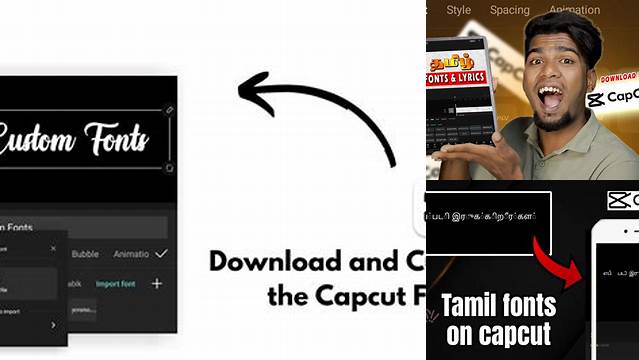
Get Your Tamil Fonts For CapCut: Download & Customize!
Hey guys! Are you looking to spice up your CapCut videos with some awesome Tamil fonts? You've come to the right place! Adding the right fonts can totally transform your videos, making them more engaging and visually appealing. So, if you're ready to learn how to download and use capcut tamil fonts download, let's dive in! We'll cover everything from finding the perfect fonts to installing them and making your videos pop.
H2: Where to Find the Best Tamil Fonts for CapCut
Alright, first things first: where do you actually find these cool Tamil fonts for CapCut? The internet is a vast place, but don't worry, I've got your back! There are several excellent resources where you can discover a wide variety of fonts. One of the most popular places to start is Google Fonts. While not all fonts on Google Fonts are Tamil, you can easily search for and filter by language. You'll find some amazing options that are free and ready to download. Another fantastic option is Dafont. Dafont offers a huge collection of fonts, including a decent selection of Tamil fonts. Be sure to check the license for each font to ensure you can use it for your video projects, especially if you plan to monetize your content. Websites that specialize in font downloads, like Font Squirrel, can also be a goldmine. These sites often have curated collections, making it easier to discover high-quality fonts. Also, don't forget to search on platforms like Behance and Dribbble. Designers often share their font creations there, and you might find some unique Tamil fonts that aren't available elsewhere. When searching, use terms like "Tamil fonts free download," "CapCut Tamil fonts," or "Tamil fonts for video editing." Keep an open mind and explore different styles – from modern and sleek to traditional and ornate – to find the perfect match for your video's vibe. Remember, the right font can make a massive difference in how your message is received, so take your time and explore all the possibilities. Now, let's get to the part where you actually download them, shall we?
H2: Troubleshooting Common Font Issues in CapCut
Even with a smooth installation process, you might run into a few hiccups. Let’s tackle some common font issues you might face while using capcut tamil fonts download in CapCut and how to fix them. One of the most common issues is that your Tamil font isn't displaying correctly. This might be because the font file is corrupted, or the font doesn't support Tamil characters fully. To fix this, try downloading the font from a different source or ensuring you have the correct file (TTF or OTF) installed. Sometimes, the font preview might look different from the actual text in your video. This could be due to font rendering issues or a mismatch between the font's design and how CapCut interprets it. Experiment with different sizes and styles to see if that improves the display. If your font appears as a series of boxes or symbols, the font may not contain the necessary characters for Tamil. Look for fonts that specifically mention support for Tamil script. Make sure the font is compatible with the latest version of CapCut. Occasionally, outdated versions can have issues with font rendering. If you've tried all the troubleshooting steps and still can't get the font to work, consider trying a different font. Sometimes, fonts just don’t work well with certain video editing software. Also, ensure CapCut has the correct permissions to access your device’s storage and external files, as this could also be a factor. Restarting the CapCut app and your device can often resolve minor glitches related to font rendering. Check the CapCut community forums or online tutorials for potential solutions. If you are still facing issues, contact CapCut’s support team directly. They should be able to provide you with more specialized support. If you have to uninstall and reinstall the app, do not forget to save the project so you do not lose your work.
H2: Finding Tamil Fonts with Unique Styles and Designs
Ready to stand out? Let's explore some unique styles and designs for your Tamil fonts that can make your videos pop. When it comes to Tamil fonts, you are not limited to just basic options! There are tons of amazing designs out there, and a little creativity can go a long way. Consider fonts with traditional styles for a classic look, or explore modern, sleek fonts for a more contemporary feel. If you’re going for an artistic feel, try out fonts that feature unique calligraphy or hand-lettering styles, perfect for intros and titles. Look for fonts with specific features such as ligatures (where characters blend) or swashes (decorative elements). These can add a touch of elegance and sophistication to your videos. Think about your video's theme and target audience. For example, if you’re creating educational content, a clean and readable font will work best. For a vibrant and fun video, consider bolder, more playful fonts. Explore fonts with different weights and styles – such as bold, italic, and condensed – to add emphasis and visual interest. Don't be afraid to mix and match fonts. Using multiple fonts can create a visually dynamic video. Consider fonts that have interesting glyphs and special characters. Try searching for fonts with custom embellishments, like small graphics or symbols that complement the Tamil script. Experiment with different color schemes and effects to enhance the font's visual impact. When choosing a font, consider how it will look at different sizes and on different backgrounds. Fonts should be clear and readable at any scale. When choosing your capcut tamil fonts download, consider these points to help make your videos stand out from the crowd.
H2: Font Combinations: Pairing Tamil Fonts with Other Fonts
Okay, let’s talk about font combinations – a fun way to add depth and visual interest to your videos. Combining Tamil fonts with other fonts can take your video editing game to the next level. When selecting fonts, the goal is to find pairings that complement each other, not clash. A good starting point is to use a Tamil font for your main titles and a simpler font for body text or captions. This creates a clear visual hierarchy, making your video easier to read and understand. If you have a bold or decorative Tamil font, balance it with a clean, sans-serif font. This pairing offers a nice contrast, as the bold Tamil font will grab attention, while the sans-serif font provides a more neutral background. If you have a simple Tamil font, you can pair it with a slightly more decorative font to add flair without overwhelming the viewer. If you choose a script or calligraphy-style Tamil font, pair it with a simpler font to avoid overcrowding. Contrast is key when choosing font combinations. Use a combination of font sizes, weights, and styles to create a dynamic look. You can use Google Fonts to find great combinations, and also experiment with mixing fonts yourself. Check out font pairing guides, which are available on many design websites. Before committing, test your combinations in your CapCut projects to ensure they work well together. Try different combinations until you find the perfect fit. You'll know you've found the right combinations when they improve the overall look and feel of your video. To make it even more visually appealing, consider color. The right color can bring the fonts together, so make sure you choose colors that match your video’s style. Have fun with it and be sure to experiment with different styles. By combining capcut tamil fonts download with other fonts, you can create stunning and professional-looking videos.
H2: Best Practices for Using Tamil Fonts in Video Editing
Now that you've got your fonts, let’s talk about best practices for using them effectively in your videos. Here are some tips to help you make the most of your Tamil fonts. Keep it simple and clear. While it's tempting to go wild with different fonts and styles, a cleaner, more streamlined approach is often best, especially for longer videos. Ensure your font choices are legible at different sizes. Your text should be easily readable on any device. Use font sizes that are appropriate for your video's content. Make sure the font is in the right place and is not covered up by other elements. Maintain a consistent font style throughout your video, so the branding is consistent. Avoid using too many different fonts in one video, which can confuse viewers. Use font weight and style variations to create visual hierarchy. Bold fonts for titles and subheadings, and lighter fonts for body text, can help organize information. Space your text correctly. Make sure there is adequate spacing between letters and lines to improve readability. If you are using the text as subtitles, give it a border to differentiate it from the video's background. Choose colors that contrast well with your video's background. Black or dark colors on light backgrounds work best. Be consistent with your font usage across your entire video series or content. Maintain a consistent visual style. Always preview your video to ensure that your fonts are displaying correctly across all devices. Test the font at different resolutions to see how it renders at different scales. Make sure you know the license restrictions of the font before you use it. Make sure your capcut tamil fonts download are used in a way that enhances your content.
H2: Optimizing Tamil Font Readability in Your Videos
H2: Advanced Techniques: Customizing Tamil Fonts in CapCut
Want to take your Tamil fonts to the next level? Let's explore some advanced techniques for customizing them within CapCut. CapCut provides customization options that can help you tailor your fonts to your specific needs. You can adjust the size, color, and style of your text. Use the text options to experiment with different looks. Adding shadows and outlines to your text can make it pop out against the background. Try different settings to find what works. Explore the